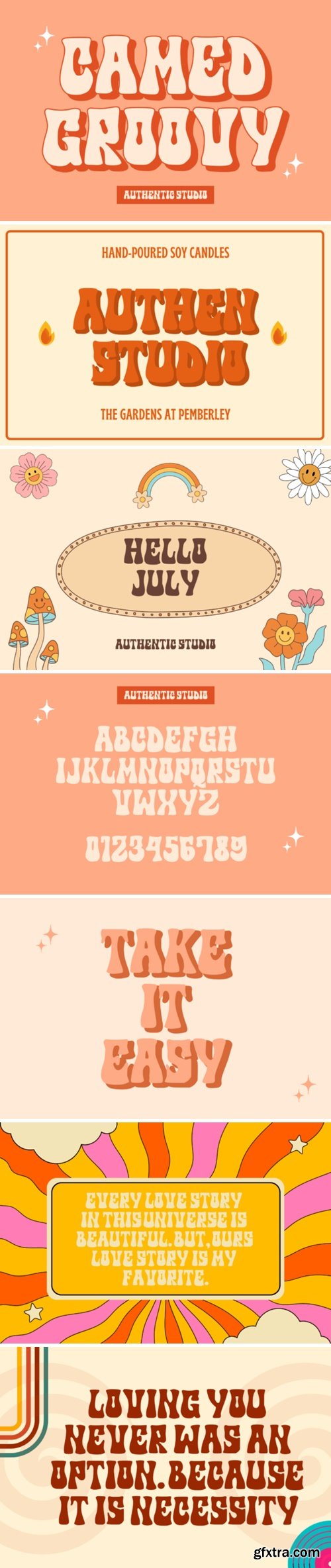
FontBundles - Camed Groovy Font 2651591
This is the Camed Groovy Font. With an aesthetic shape that fits all your design needs. Is the perfect choice for projects that require a touch of funk and personality. It lends itself well to album covers, posters, advertisements, and any design that demands attention and exudes an infectious sense of fun.